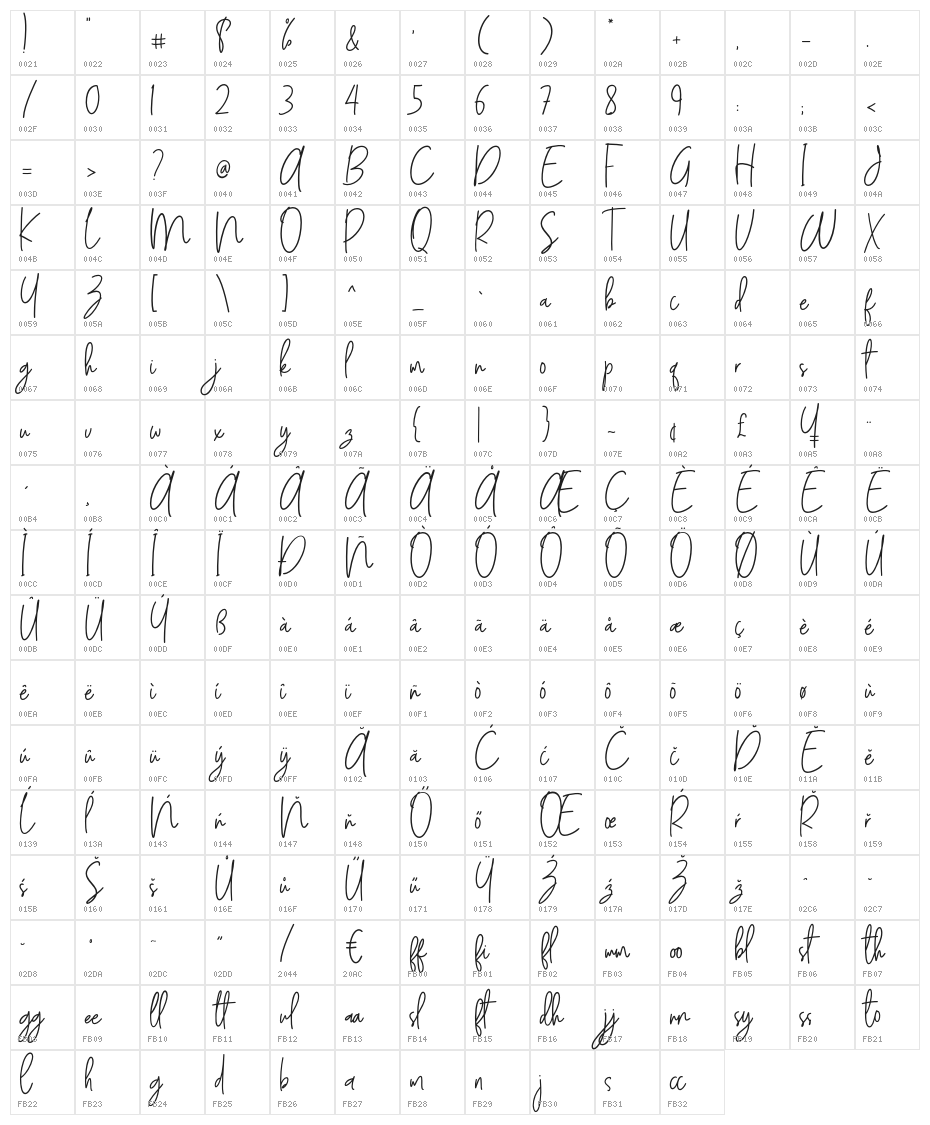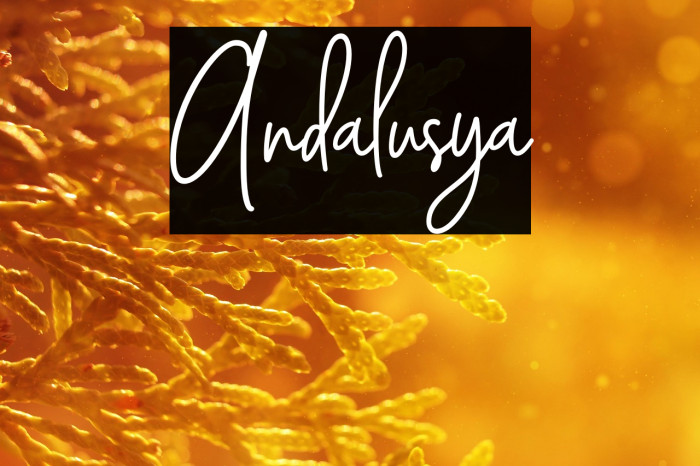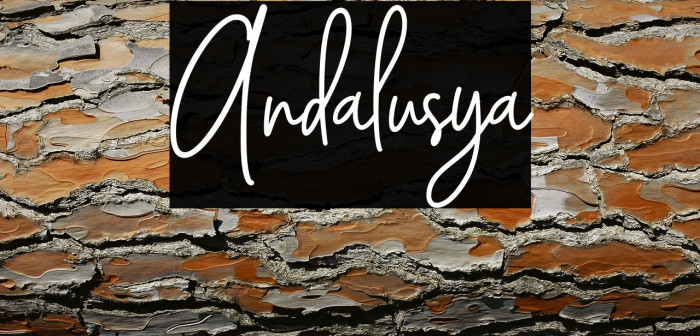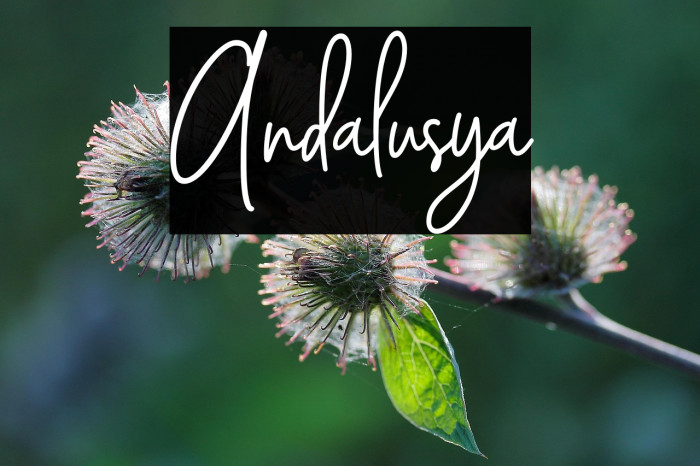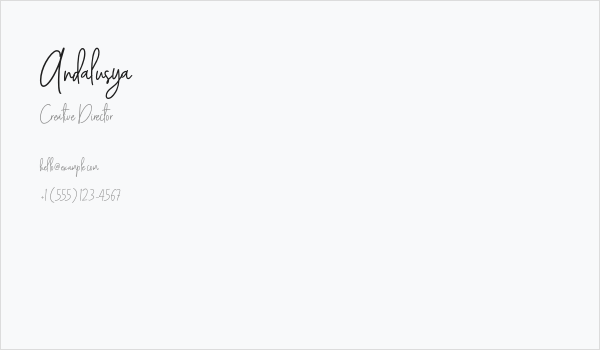
Andalusya Font
Andalusya Description
This font features a flowing, handwritten style that exudes elegance and sophistication. The letters are elongated with smooth, continuous strokes, giving it a fluid and dynamic appearance. The uppercase characters maintain a consistent height, while the lowercase letters have a slightly more playful and varied structure. The numbers are clear and legible, matching the overall aesthetic with their slender forms. Special characters are integrated seamlessly, maintaining the font's cohesive look. This font's unique style makes it suitable for creative and artistic projects, where a personal touch is desired.
| Overall Style | Elegant, Artistic |
| Proposed Projects | Ideal for wedding invitations, personal branding, artistic posters, and greeting cards. |